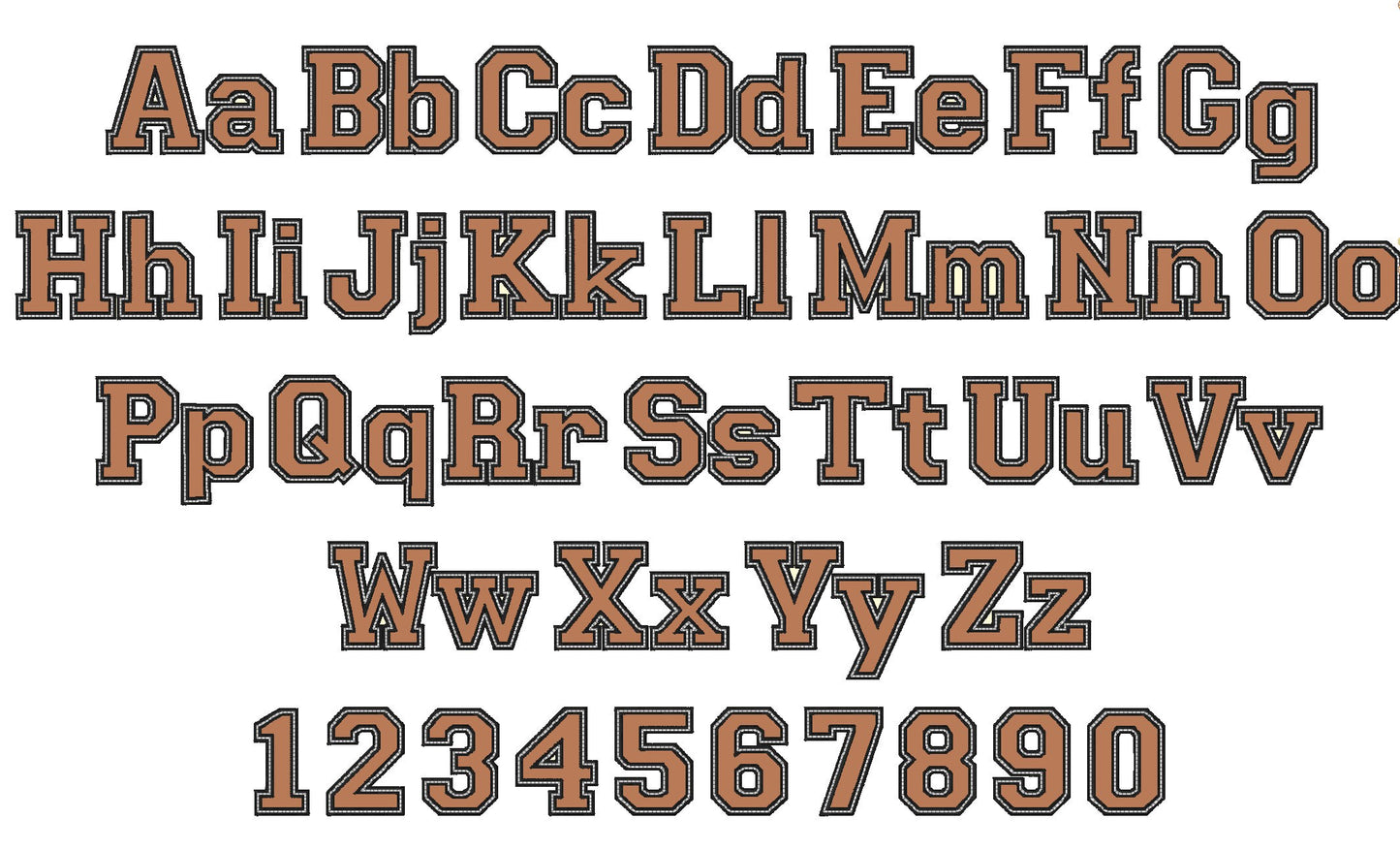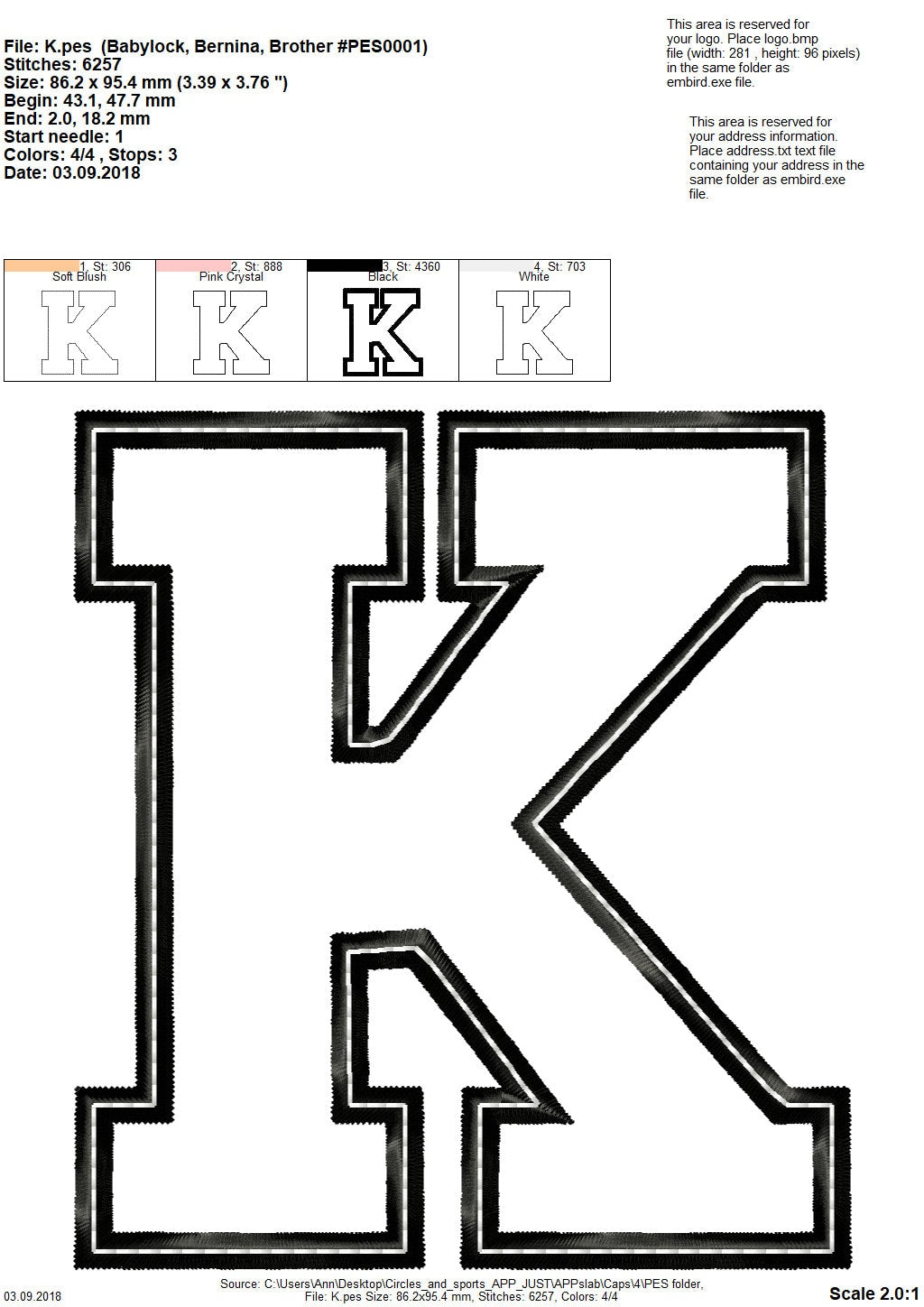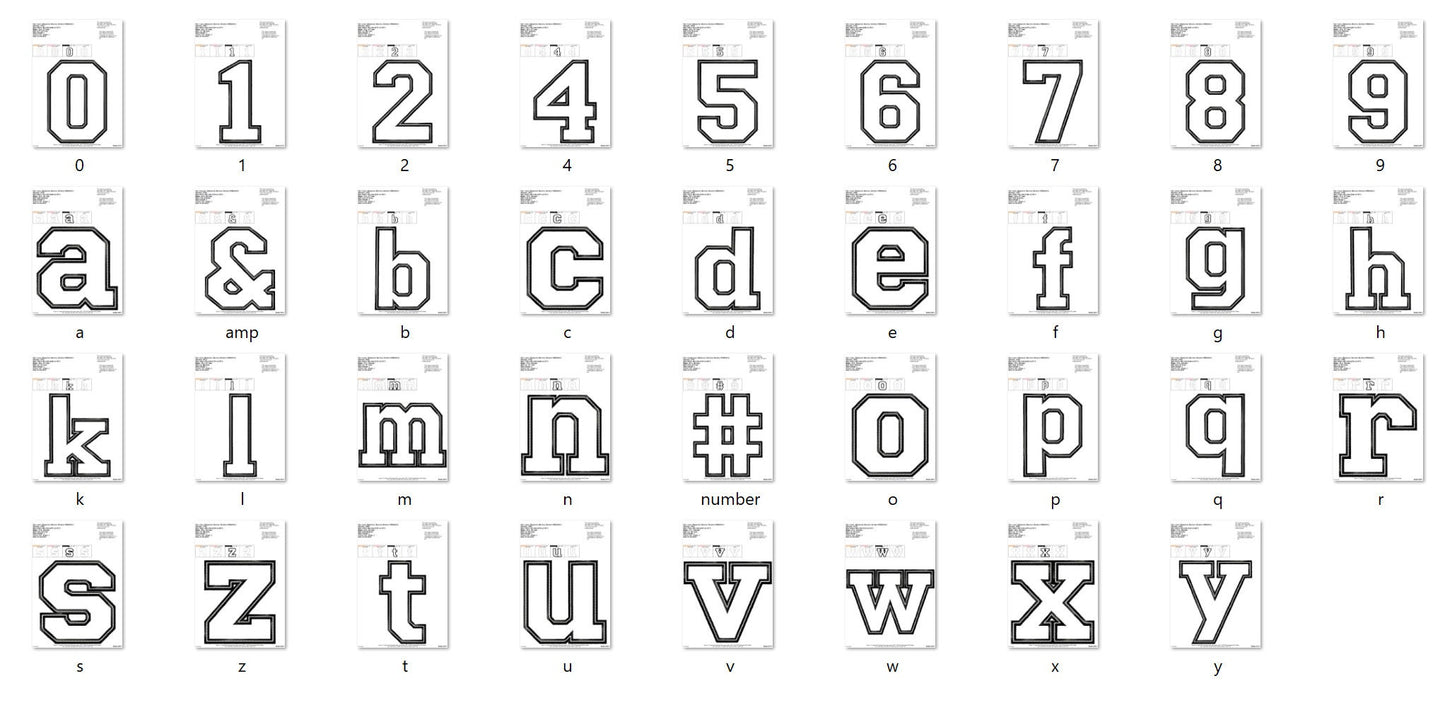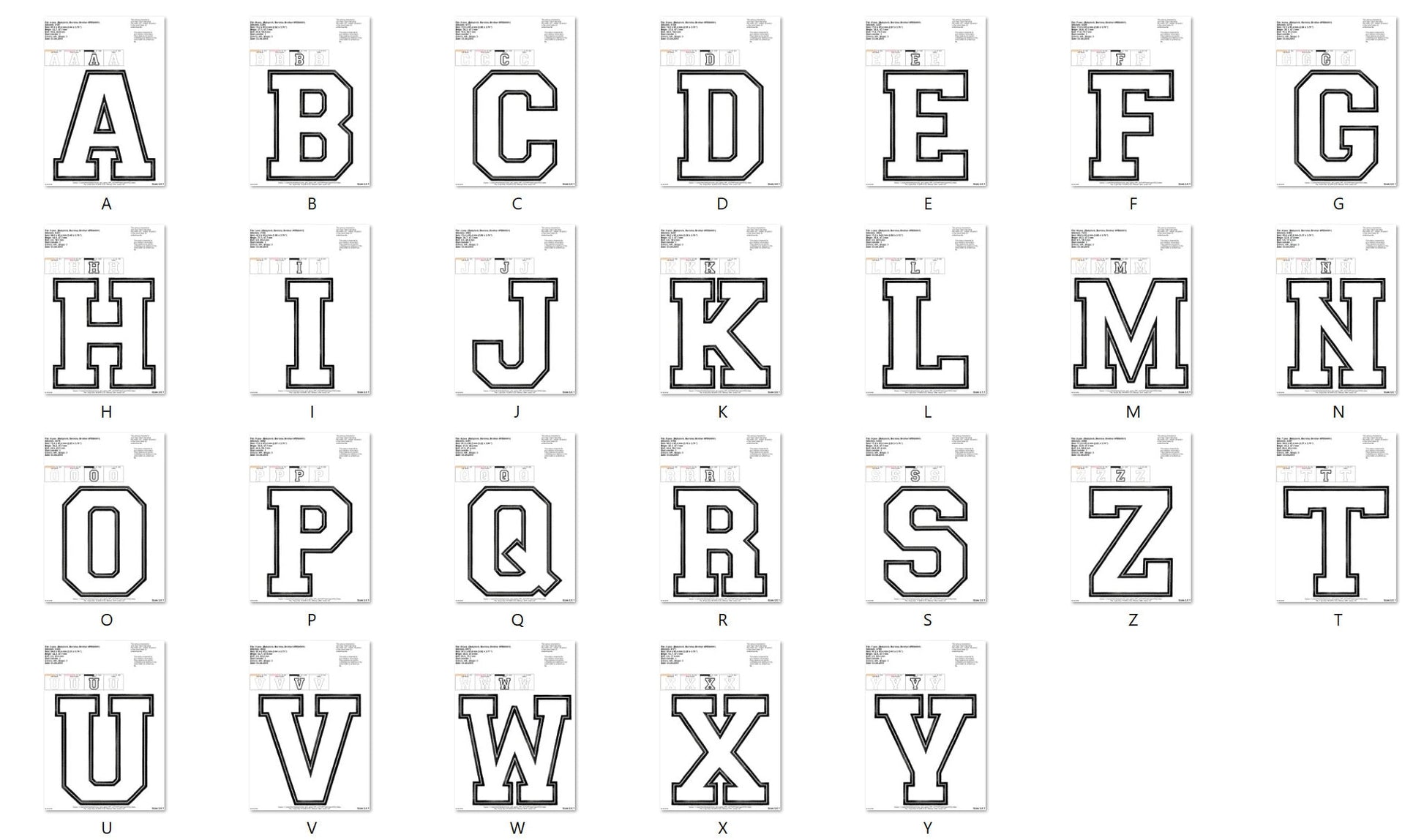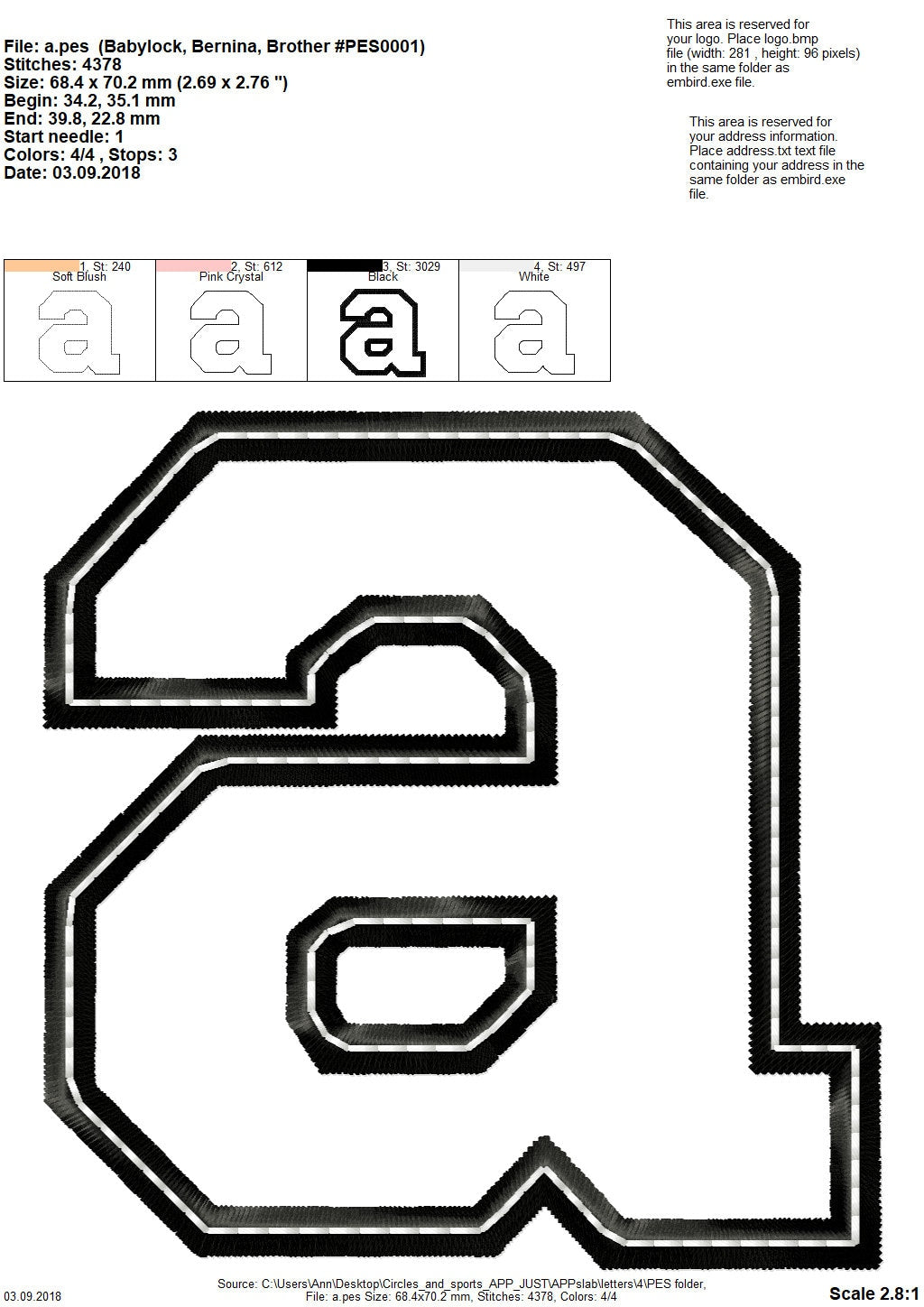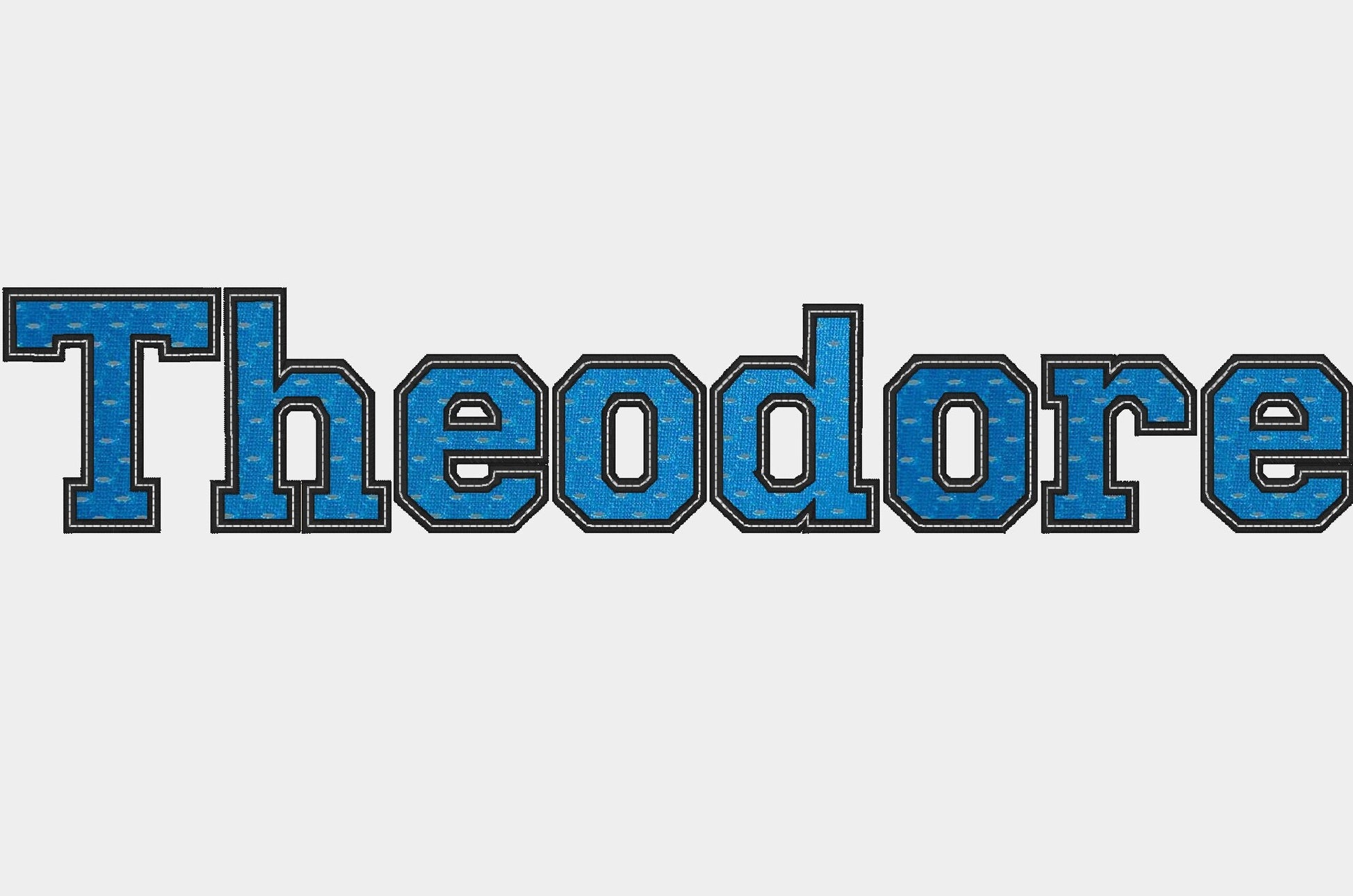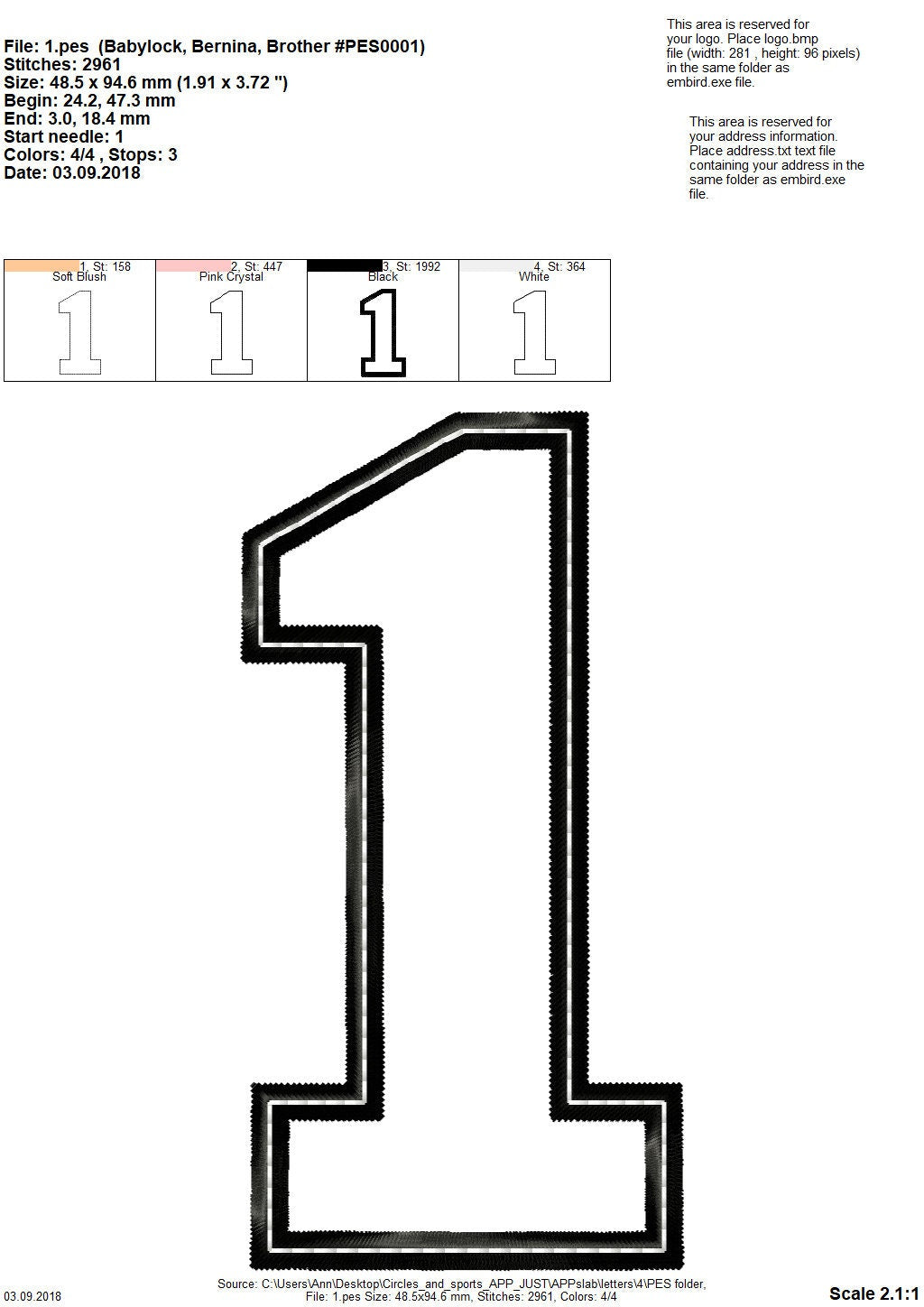
Athletic Collegiate Sport Font Applique
Or click to open the linkA block athletic collegiate applique font for team names, numbers and initials on jerseys, hoodies and bags.
A wide satin applique edge with a triple stitch on top keeps the letters neat and secure in the wash; the triple stitch can be skipped. Uppercase and lowercase letters, numbers and punctuation in seven sizes: 2, 2.5, 3, 3.5, 4, 5 and 6 inches.
- Athletic collegiate applique font
- Uppercase, lowercase, numbers 0-9, punctuation
- 7 sizes, 2 to 6 in